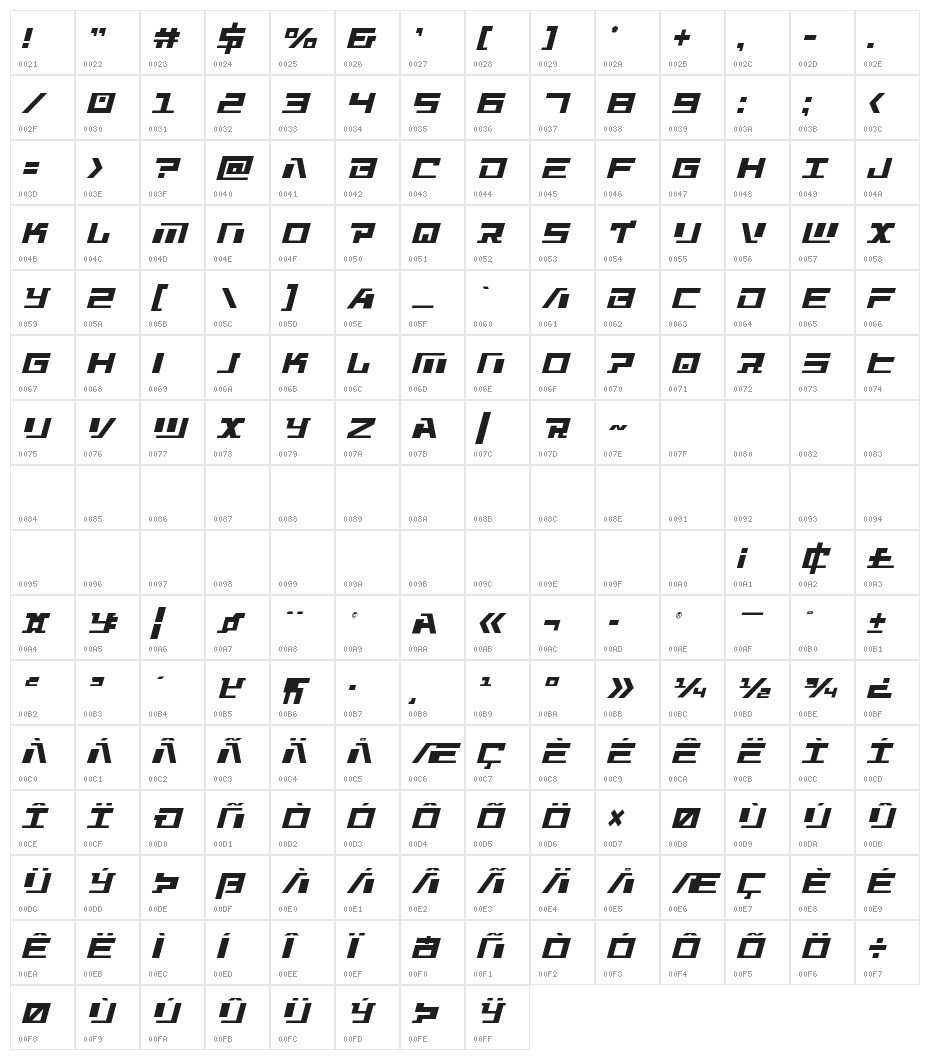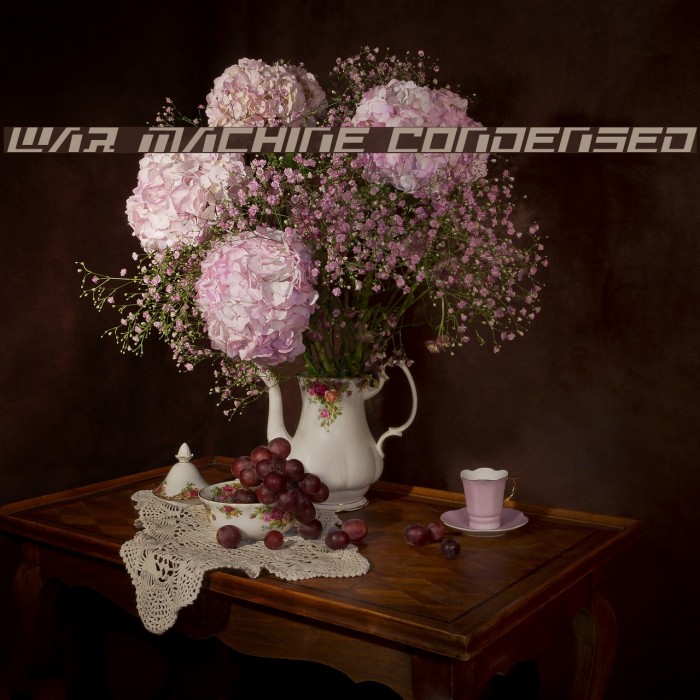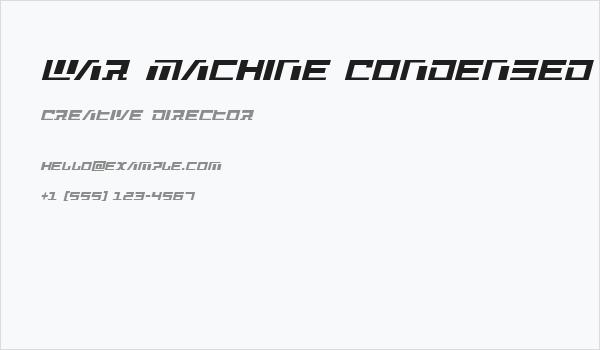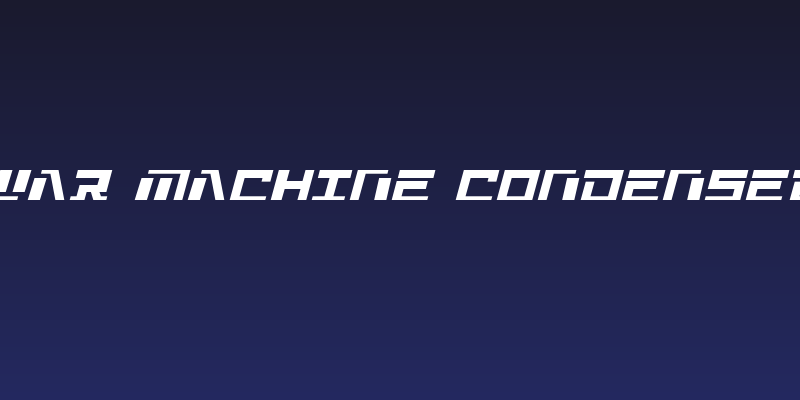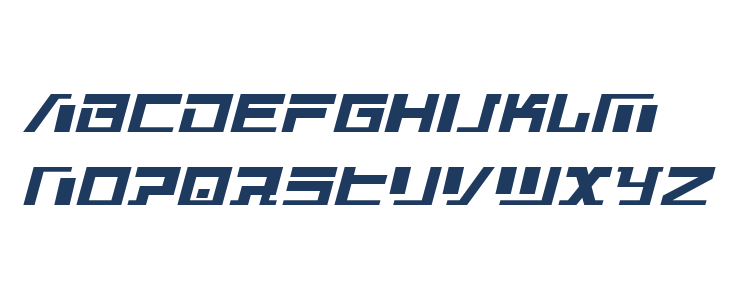
War Machine Condensed Font
War Machine Condensed Description
This font features a bold and futuristic design with sharp, angular edges and a condensed structure. The characters are tightly spaced, creating a compact and impactful appearance. The uppercase and lowercase letters maintain a consistent style, emphasizing a modern and industrial aesthetic. The numerals and special characters are designed to complement the overall theme, making it suitable for projects that require a strong and assertive visual presence. The font's unique style is ideal for conveying a sense of technology and innovation.
| Overall Style | Futuristic, Industrial |
| Proposed Projects | Ideal for technology branding, video game titles, sci-fi movie posters, and industrial-themed designs. |